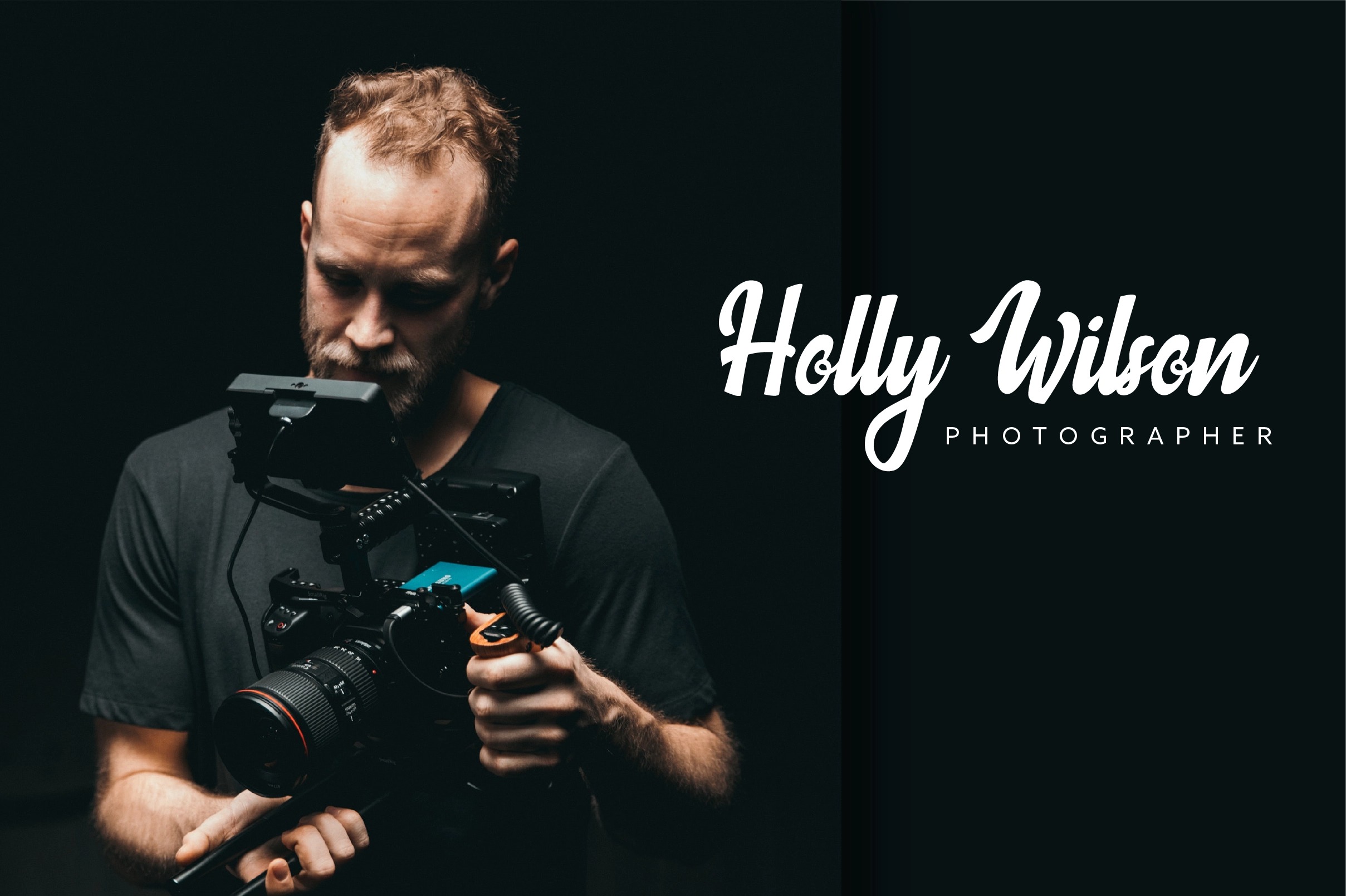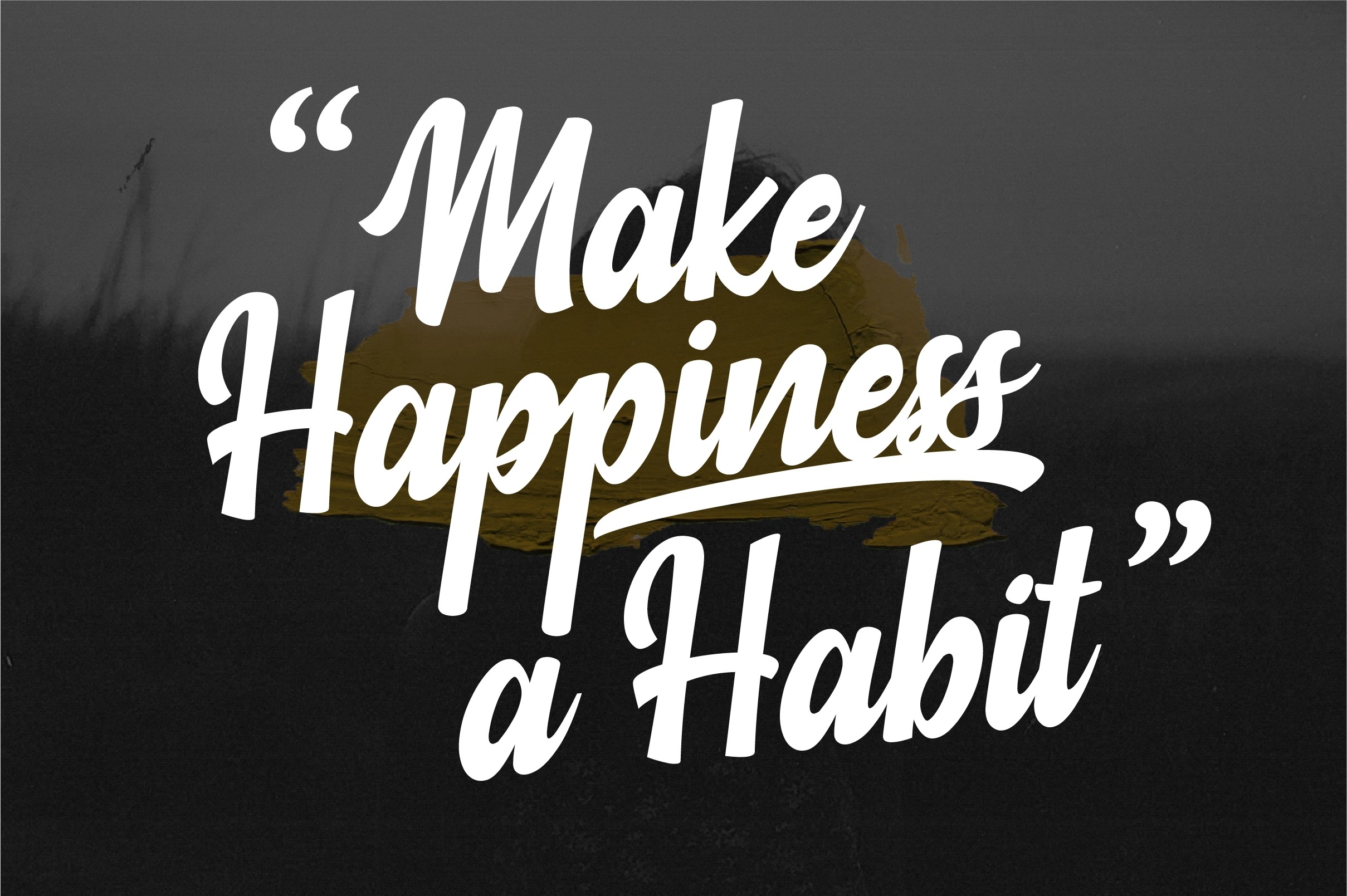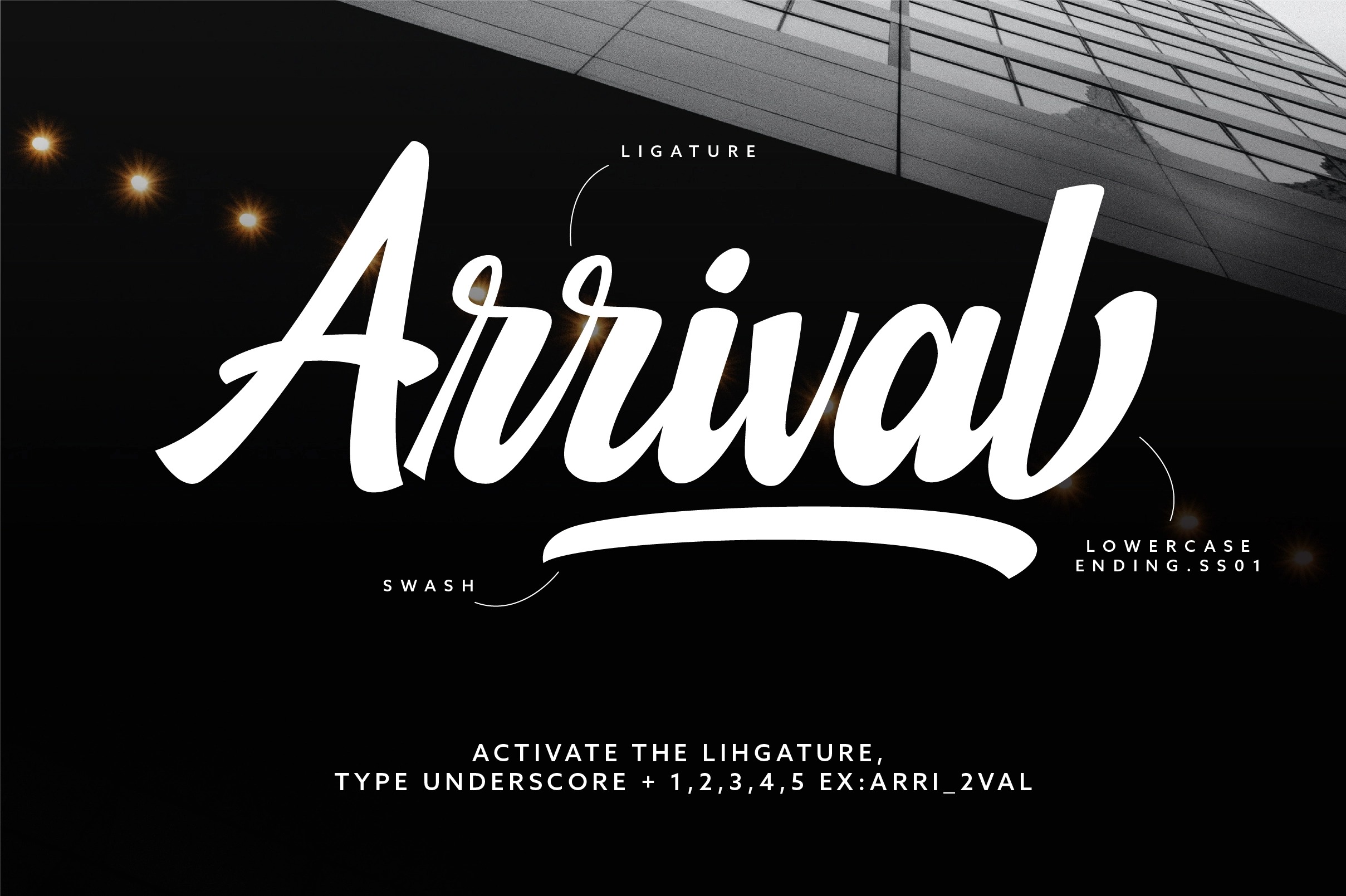
Barrbar Script Font
This is the font of choice for writing things beyond words. This typeface is designed with great detail to convey stylish elegance. This font is great for your next creative project such as Logotype, printed quotes, invitations, cards, product packaging, headers, Letterhead, Poster, Apparel Design, Label, and etc.